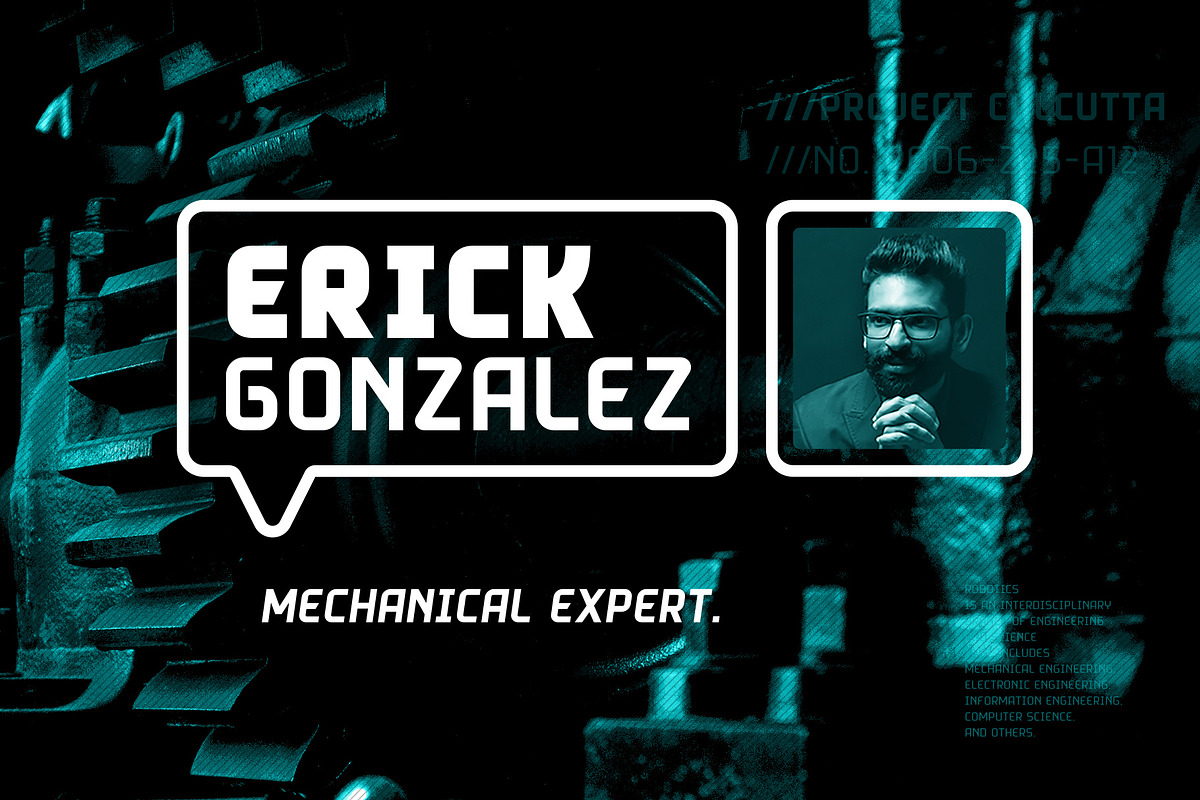
Toska Sans
Toska is a geometric sans serif font. This font has a strong but friendly impression because the rounded corners make the eyes feel comfortable. Suitable for headings, poster titles, logotypes, signage, packaging and Toska can even be used for interesting paragraphs.
Comes in 8 weights, each weight having an italic version so you are free to pair various weights to make your typography more attractive.
Toska Complete Family:
- Toska Thin
- Toska Thin Italic
- Toska Light
- Toska Light Italic
- Toska Regular
- Toska Italic
- Toska Medium
- Toska Medium Italic
- Toska Bold
- Toska Bold Italic
- Toska ExtraBold
- Toska ExtraBold Italic
- Toska Black
- Toska Black Italic